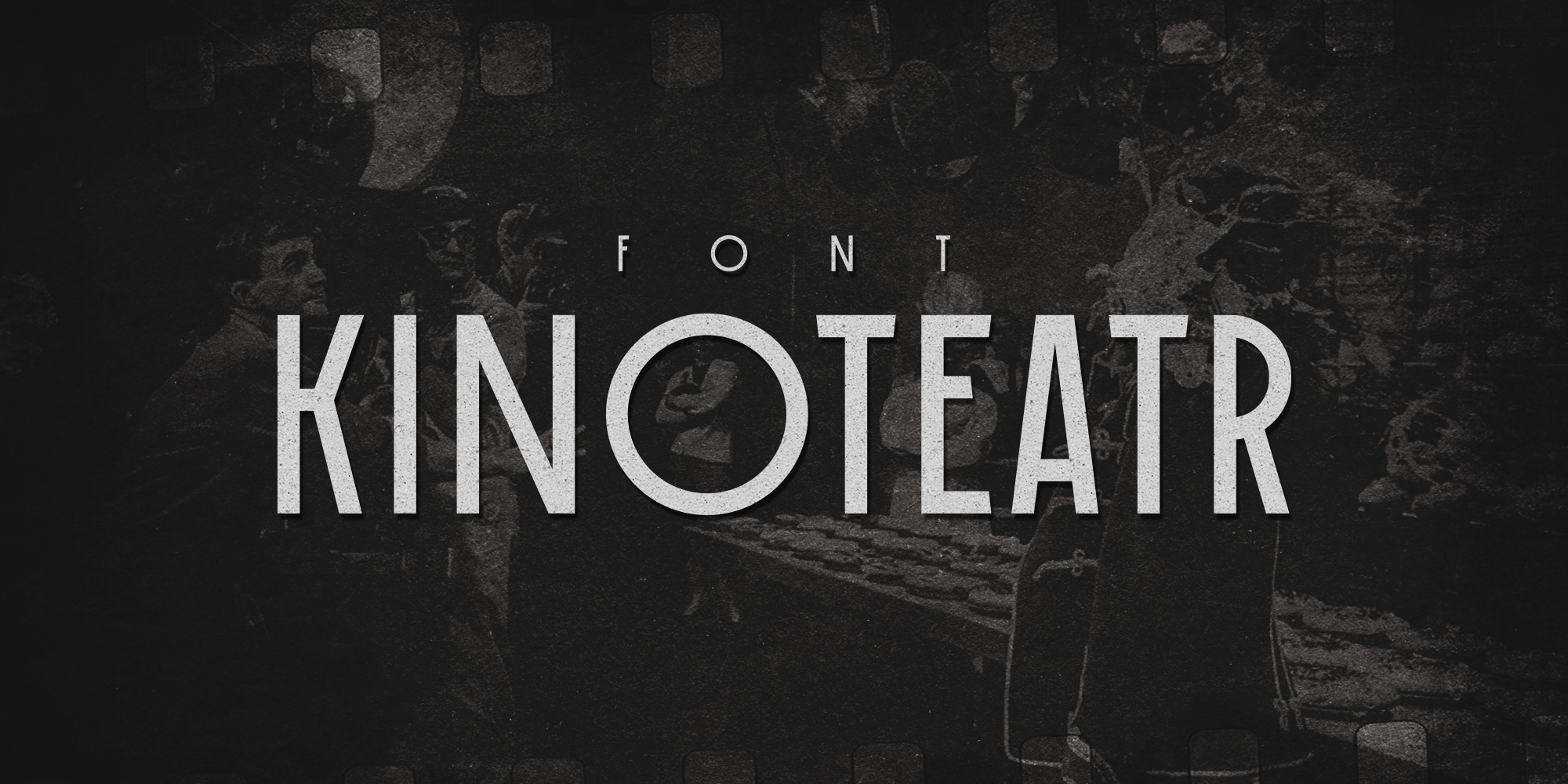
TD Kinoteatr Font Free Download – Bold Vintage Cinema Typeface
Step into the golden age of film with the TD Kinoteatr Font Free Download, a striking display font inspired by classic movie theater marquees and vintage cinema posters. With its dramatic letterforms and retro charm, this font is perfect for film titles, event posters, and designs needing a touch of Hollywood glamour.
Why Choose TD Kinoteatr Font?
The TD Kinoteatr Font Free Download brings cinematic drama with:
Theater Marquee Style – Bold, attention-grabbing letterforms
Vintage Film Aesthetic – Nostalgic 1950s cinema appeal
Excellent Visibility – Designed to command attention
Movie title sequences
Film festival promotions
Vintage theater branding
Classic Hollywood designs
Retro event posters
Key Features
All-Caps Character Set – Powerful uppercase letters
Alternate Glyphs – Customizable character variations
Multilingual Support – Basic Latin language coverage
Design Applications
Classic movie poster typography
Film festival program covers
Vintage cinema branding
Retro-themed social media graphics
Pro Tip: Enhance the cinematic feel with:
Film grain textures
Spotlight gradient effects
Classic clapboard elements
Dramatic shadow treatments
Designer Note: For authentic vintage appeal, pair with Art Deco borders or use in classic red/gold color schemes.